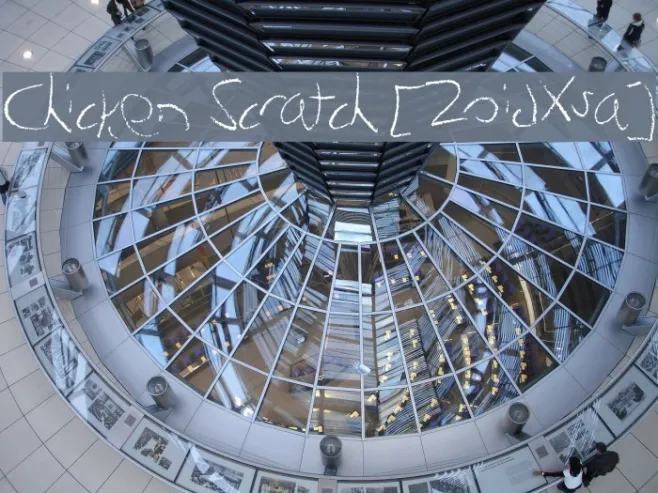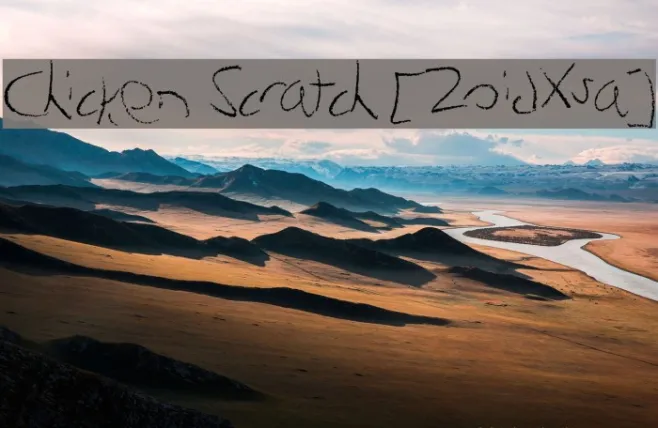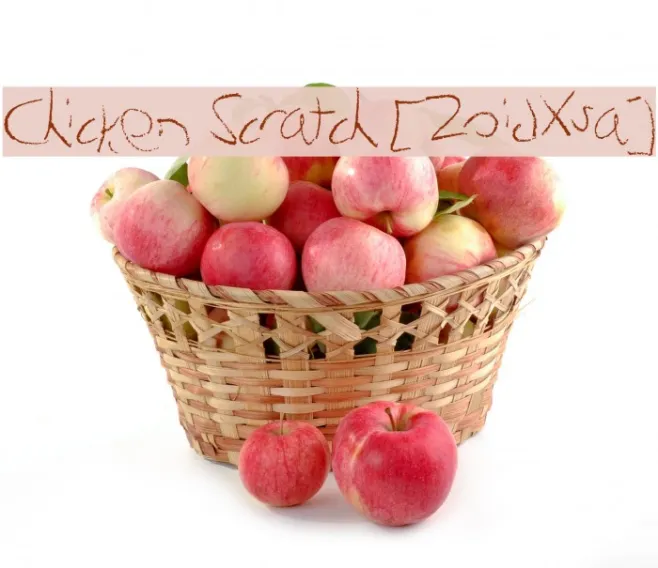
Chicken Scratch [ZoidXsa] Font
Chicken Scratch [ZoidXsa] Description
This font features a playful, hand-drawn style reminiscent of casual handwriting. The strokes are uneven and jagged, giving it a raw, organic feel. Each character appears as if it were quickly sketched with a crayon or chalk, adding to its informal and whimsical nature. The uppercase and lowercase letters maintain a consistent style, with a slightly tilted and irregular alignment that enhances its casual aesthetic. The numerals and special characters follow the same sketchy design, ensuring a cohesive look throughout. This font is ideal for projects that require a personal touch or a sense of spontaneity.
| Proposed Projects | Great for children's book covers, playful invitations, casual branding, or any project needing a whimsical touch. |